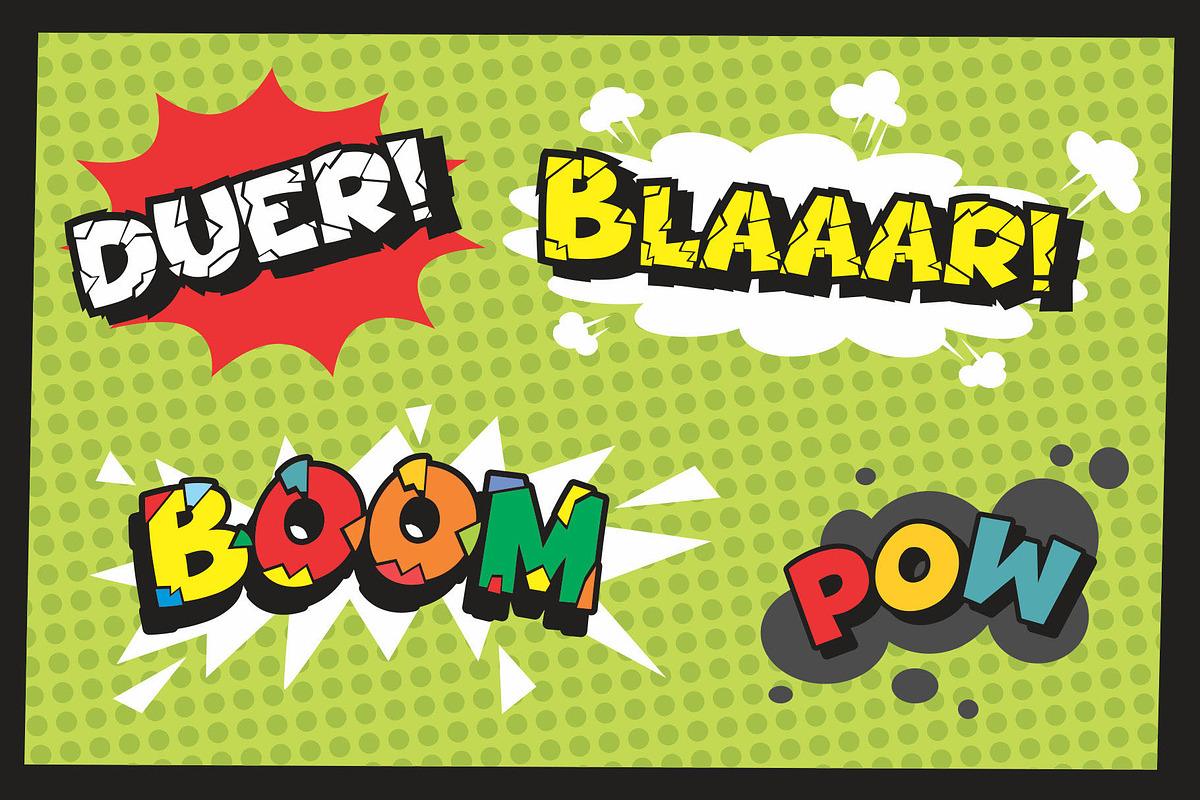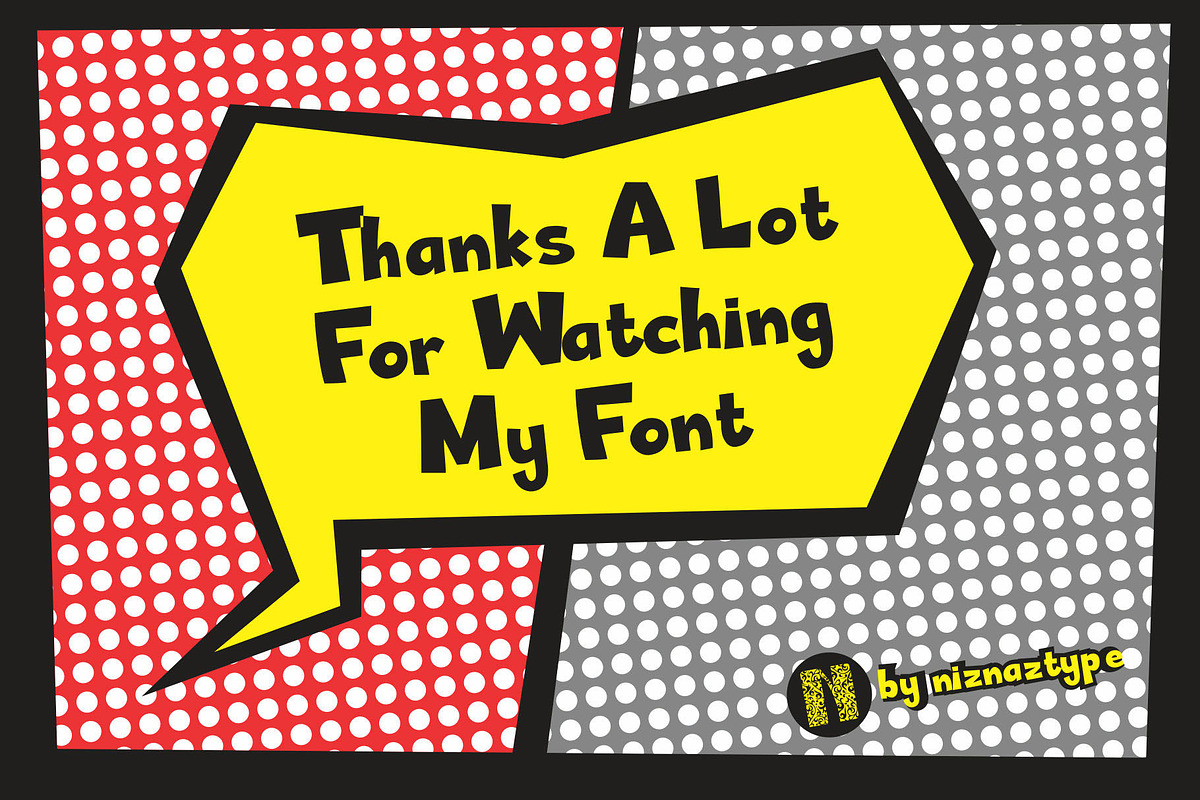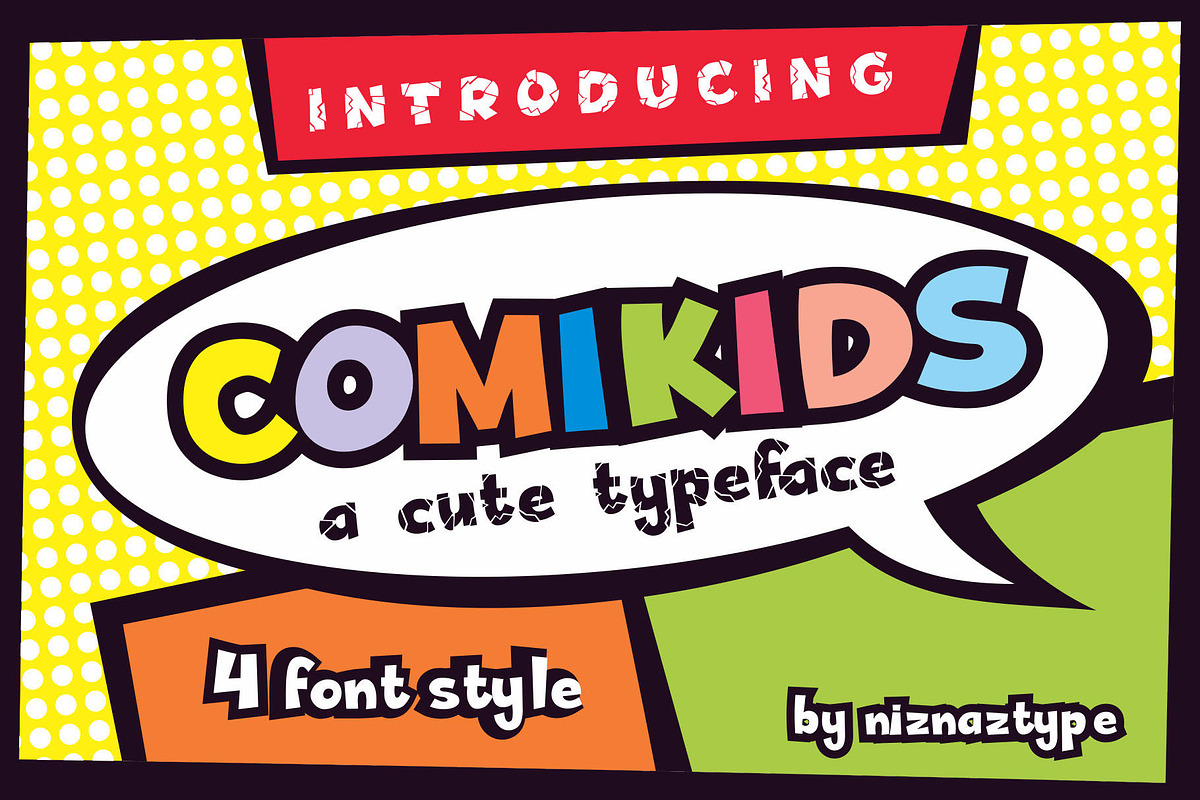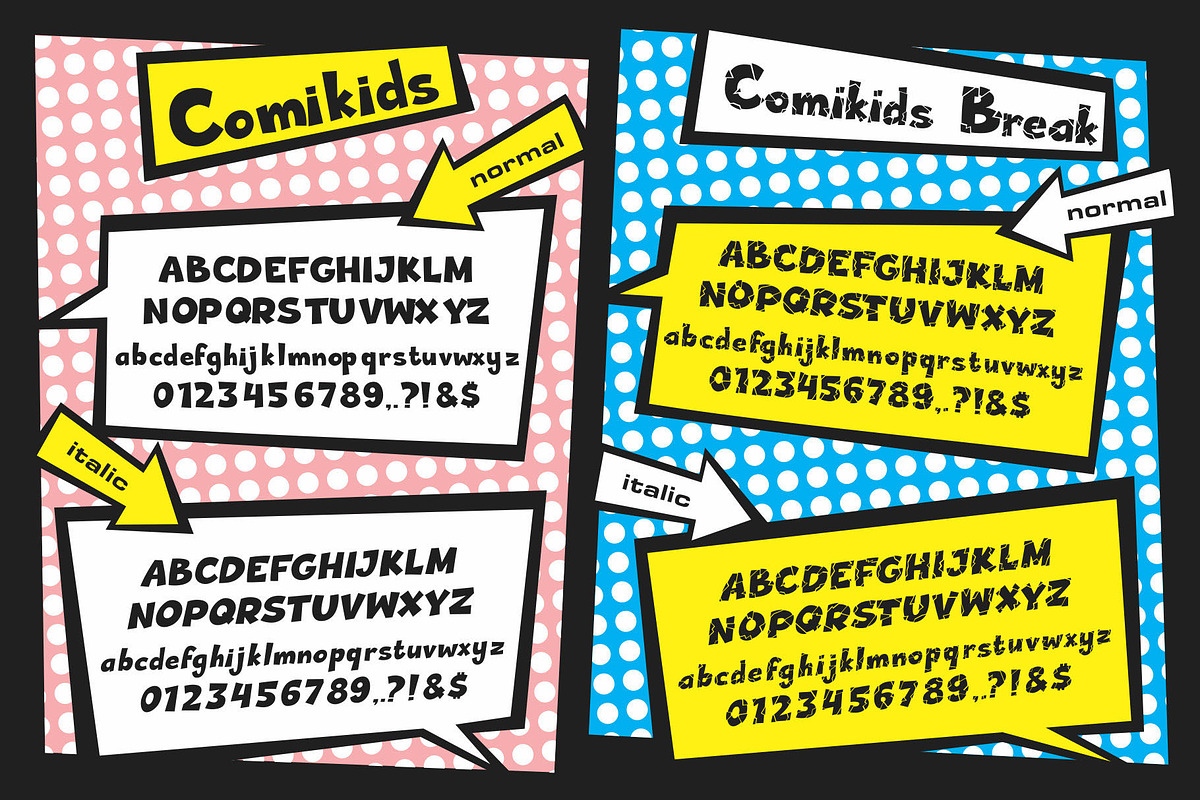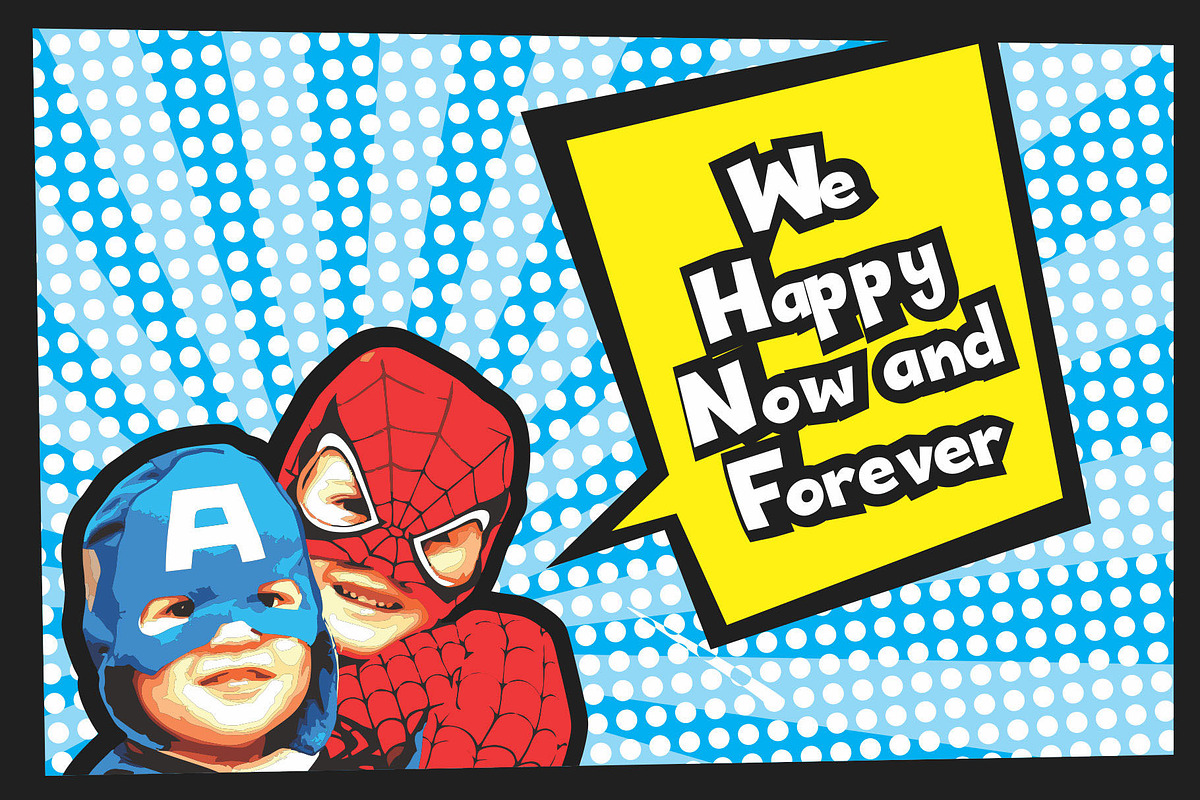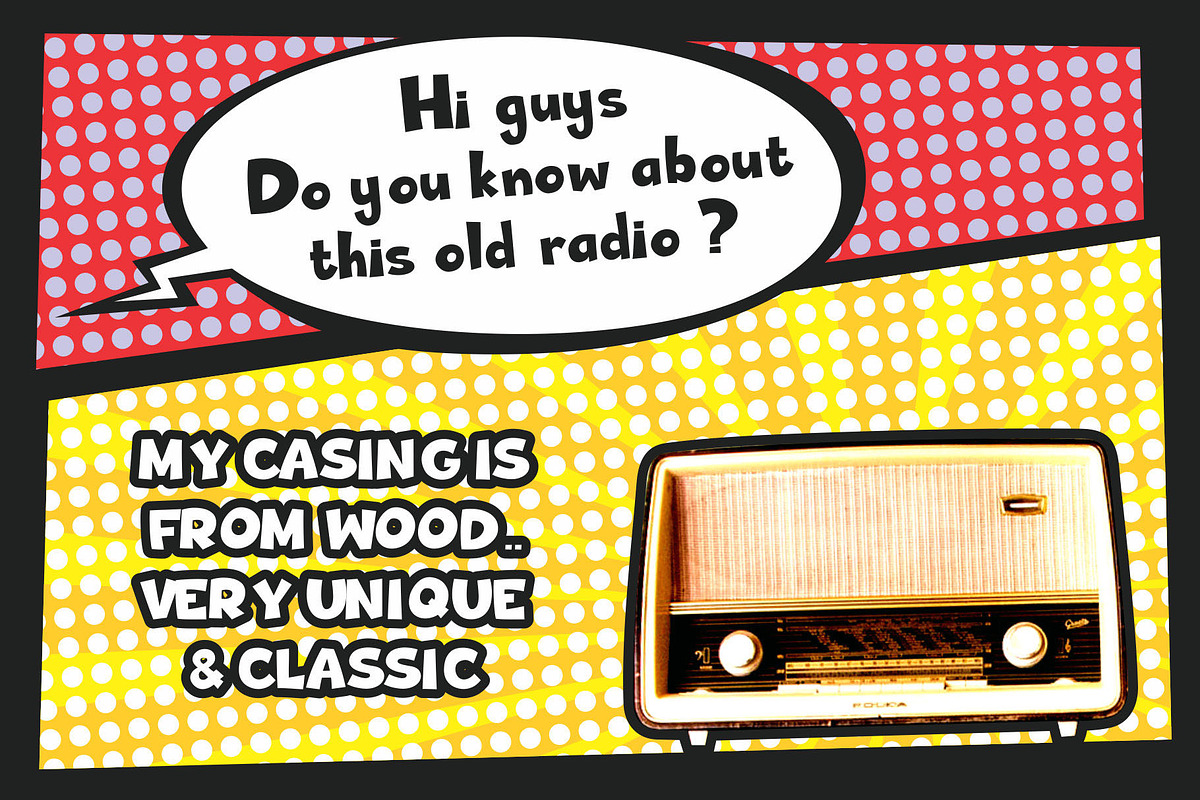
Comikids - A Comic Font
Introducing a comic and fun typeface characters. Its name as Comikids Font. A font that have a unique style used for complete typing in comic text, ballon text, illustration type, children themes. Comikids have a flavor as fun, cool and happy. This font created to perfect your designs like text in comic, fun headline, ballon text, headline in poster or kids magazine, alphabet for wallpainting and others design for perfecting a high style and characters in kids or fun cases. Even Comikids Break can used for others themes and designs. Comikids contain four styles :